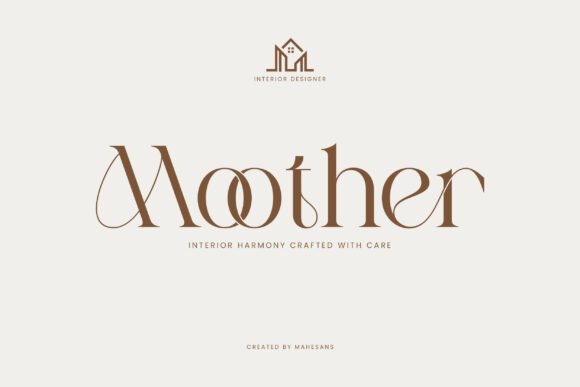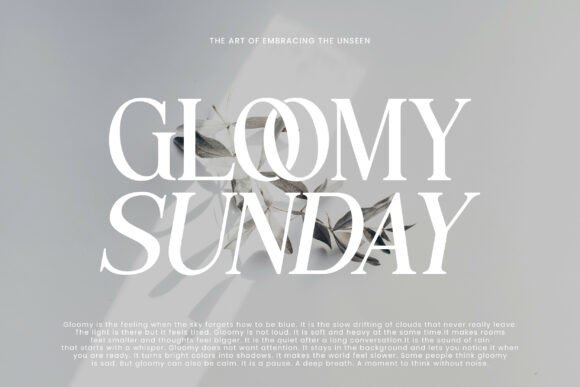
Modern Serif Bundle Font
Modern Serif Fonts Collection – Exclusive Bundle with 8 Premium Serif Fonts
Upgrade your design toolkit with the Modern Serif Fonts Collection, an exclusive bundle packed with elegant, stylish, and versatile serif fonts. This collection is designed to elevate branding, logos, editorial design, packaging, social media, and creative projects that need a touch of sophistication with a modern twist.
Inside this bundle, you’ll find a variety of contemporary serif styles – from sleek and minimalist to bold and character-rich. Every font is crafted with precision and high-end aesthetics, making your work look polished and professional.
Fonts Included:
– Agathe
– Clarita
– Vorage
– Vogue Chola
– Ganer
– Ozean
– Glavore
– Logue
Perfect for:
– Logos & Branding Identity
– Editorial & Magazine Layouts
– Fashion & Luxury Branding
– Packaging Design
– Posters, Quotes & Social Media Templates